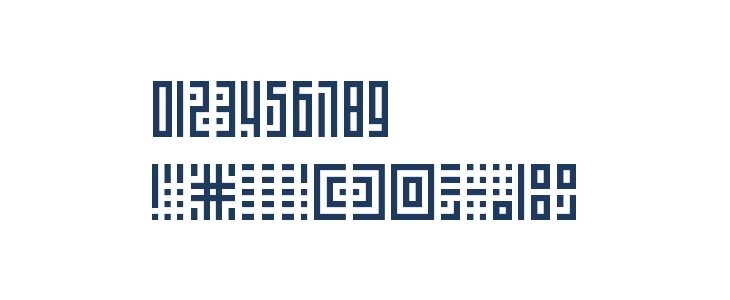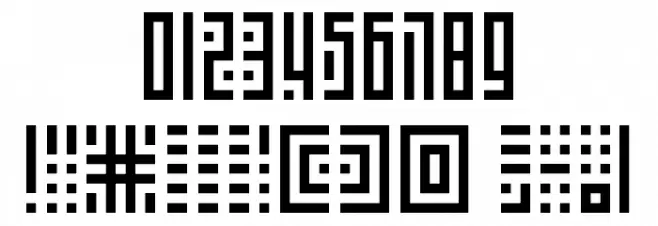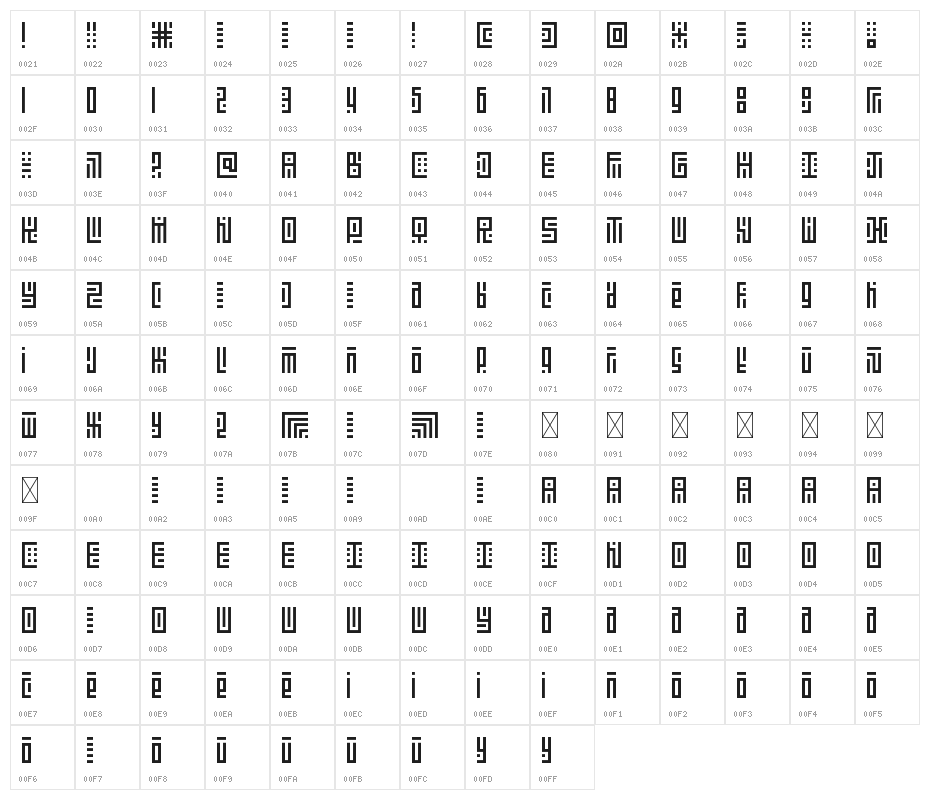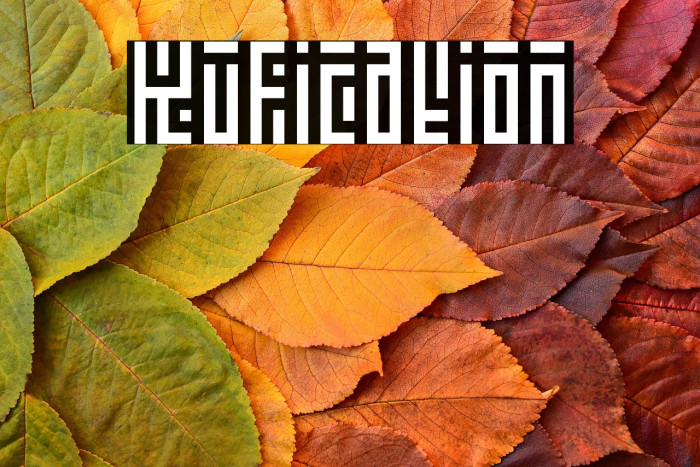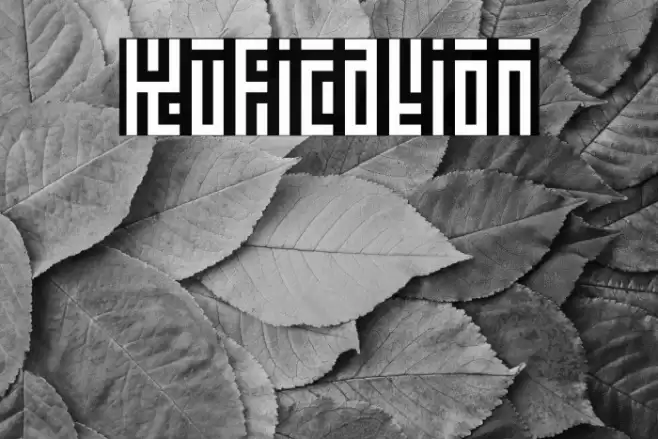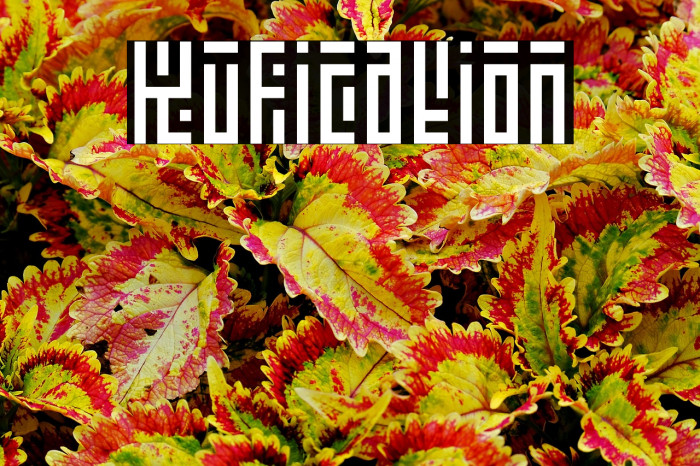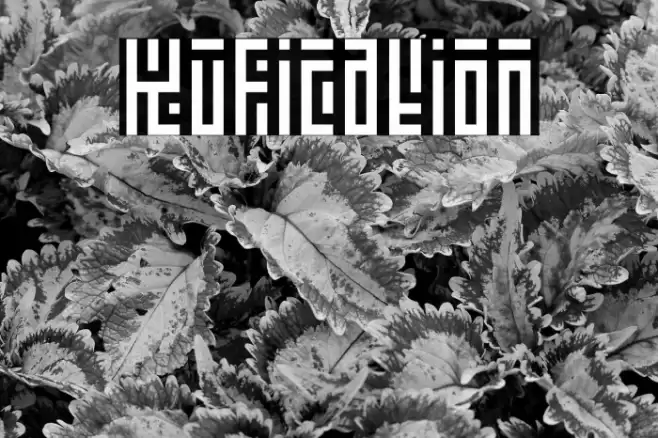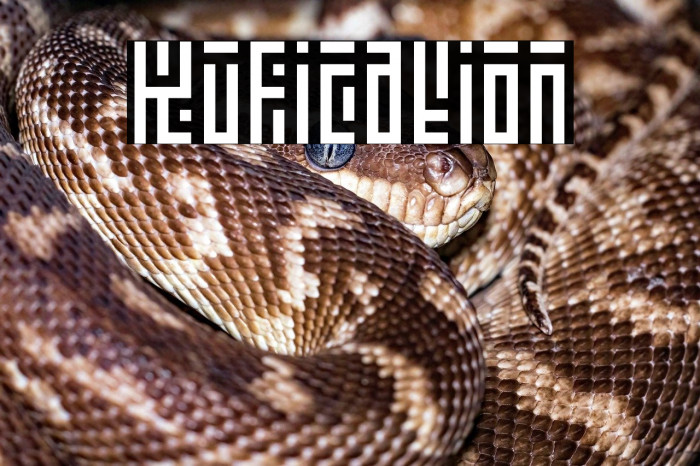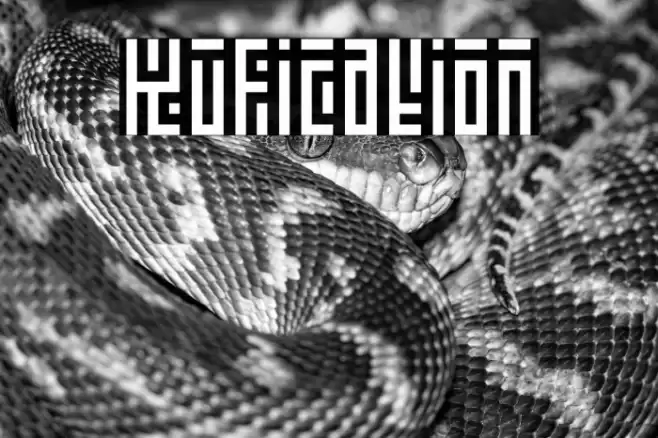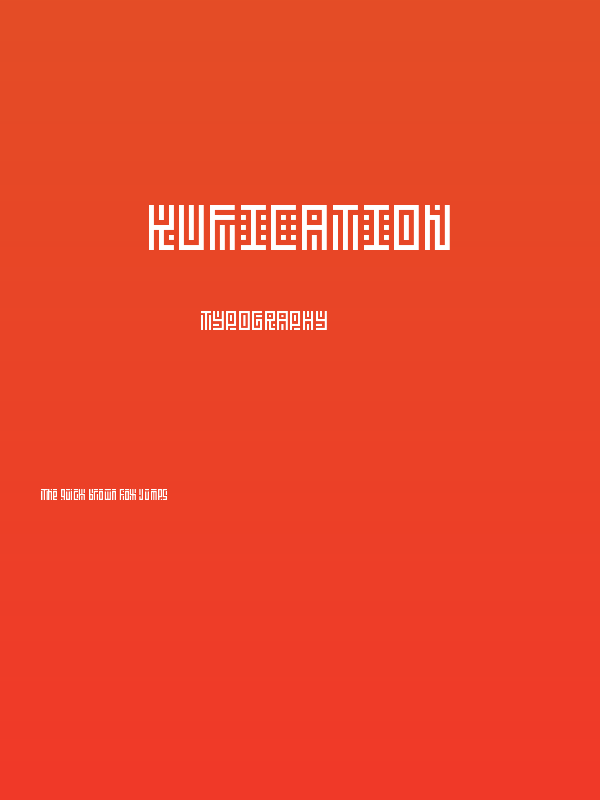
Kufication Font
Kufication Description
This font features a highly geometric and decorative style, characterized by its bold, block-like forms and intricate patterns within each character. The design incorporates elements reminiscent of ancient scripts, with a modern twist that emphasizes symmetry and structure. Each letter and number is crafted with a series of lines and dots, creating a maze-like appearance that is both captivating and complex. The font's unique aesthetic makes it suitable for projects that require a strong visual impact and a touch of cultural or historical flair.
| Proposed Projects | Ideal for branding, posters, album covers, and any design project that seeks to make a bold statement with a cultural or historical edge. |